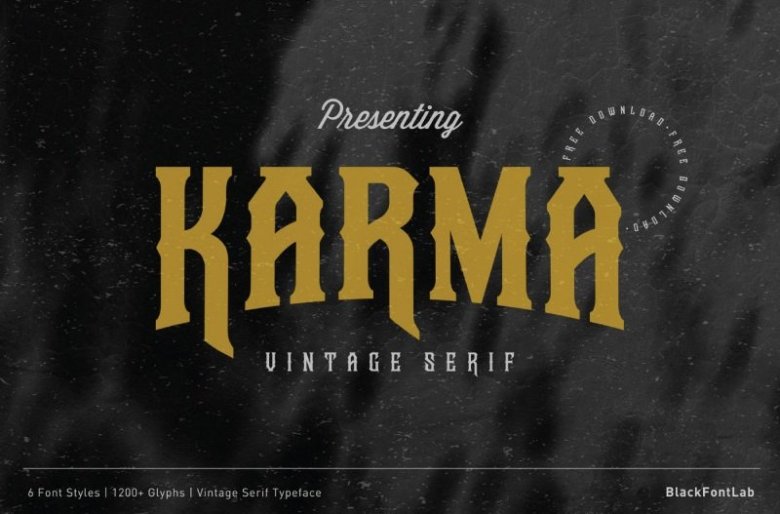
Karma Vintage Font
Karma Vintage Font is a lovely vintage label font. This font works great with text, but it looks even better with display titles, logos, and others. It’s a serif font family inspired by blackletter style. This font family is suitable for vintage artworks, posters and branding especially for cafe, coffee, beer and bar businesses. Our team has crafted 6 styles (Regular, Regular Oblique, Bold, Bold Oblique, Light, Light Oblique), each style contains 210 glyphs.